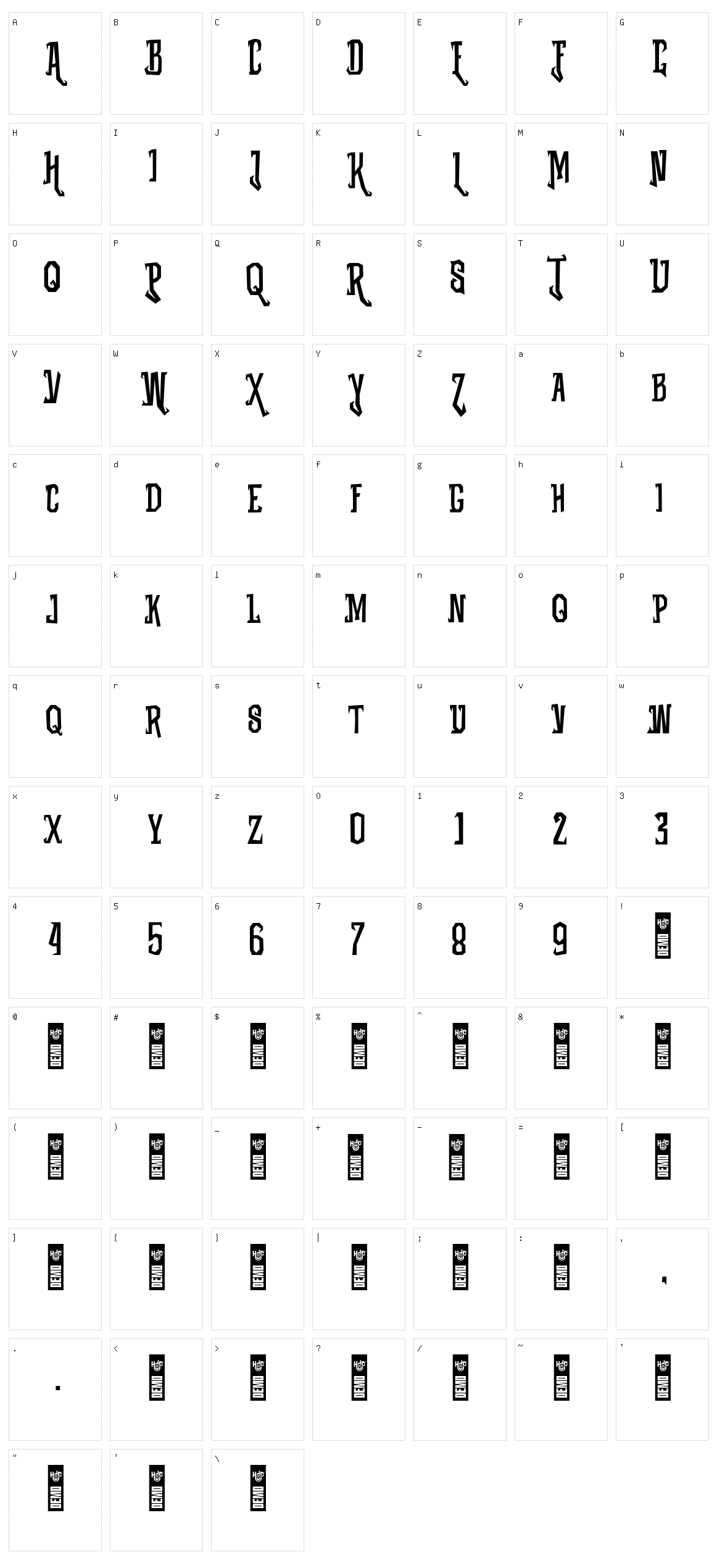
The free font Wolfa is carefully designed by Hydric Design, showcasing a thoughtful balance of creativity and usability and falls under the Halloween font style. When you download the ZIP file, it contains only 11.38 KB of font files, making it lightweight and quick to download. Please review the license details below to understand permitted usage and distribution rights. If license information is not available, we recommend using this font for personal projects only or contacting the author directly for commercial usage permissions.